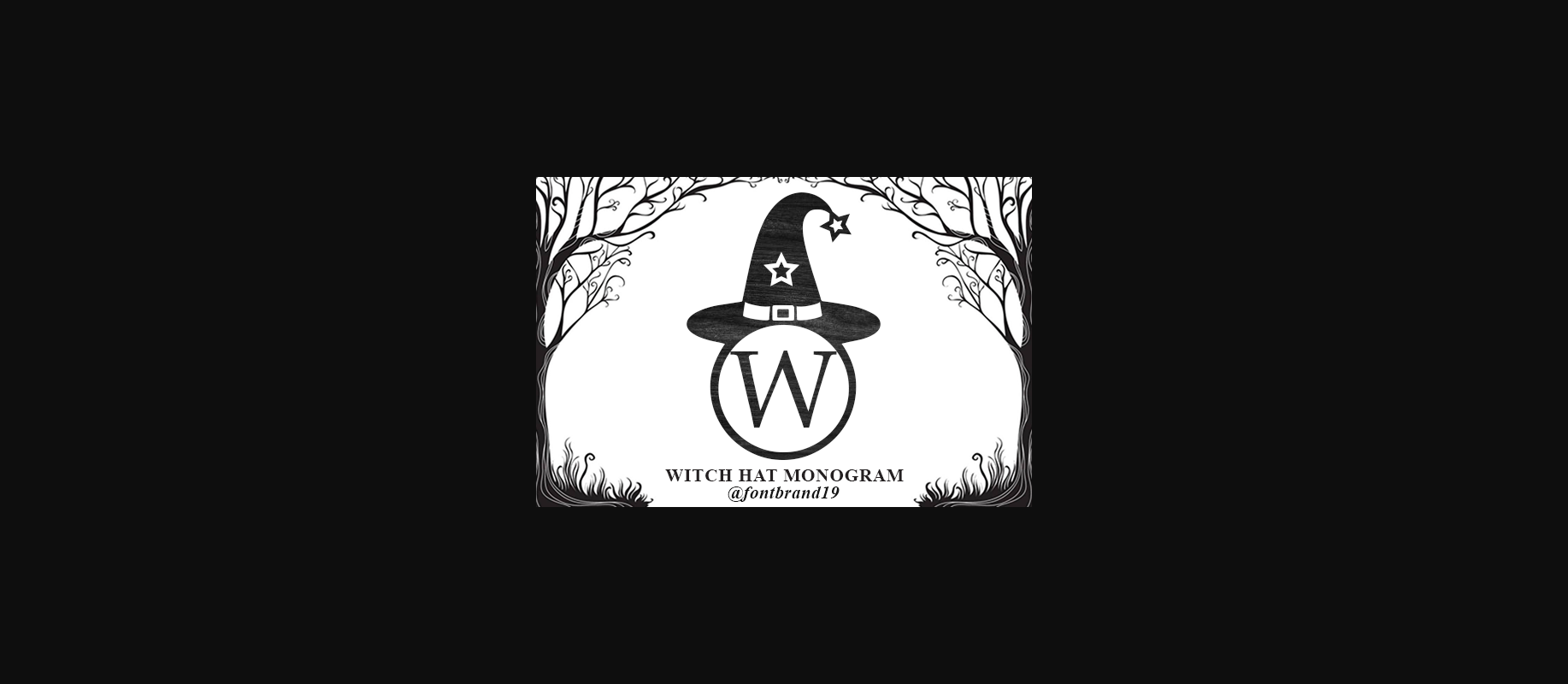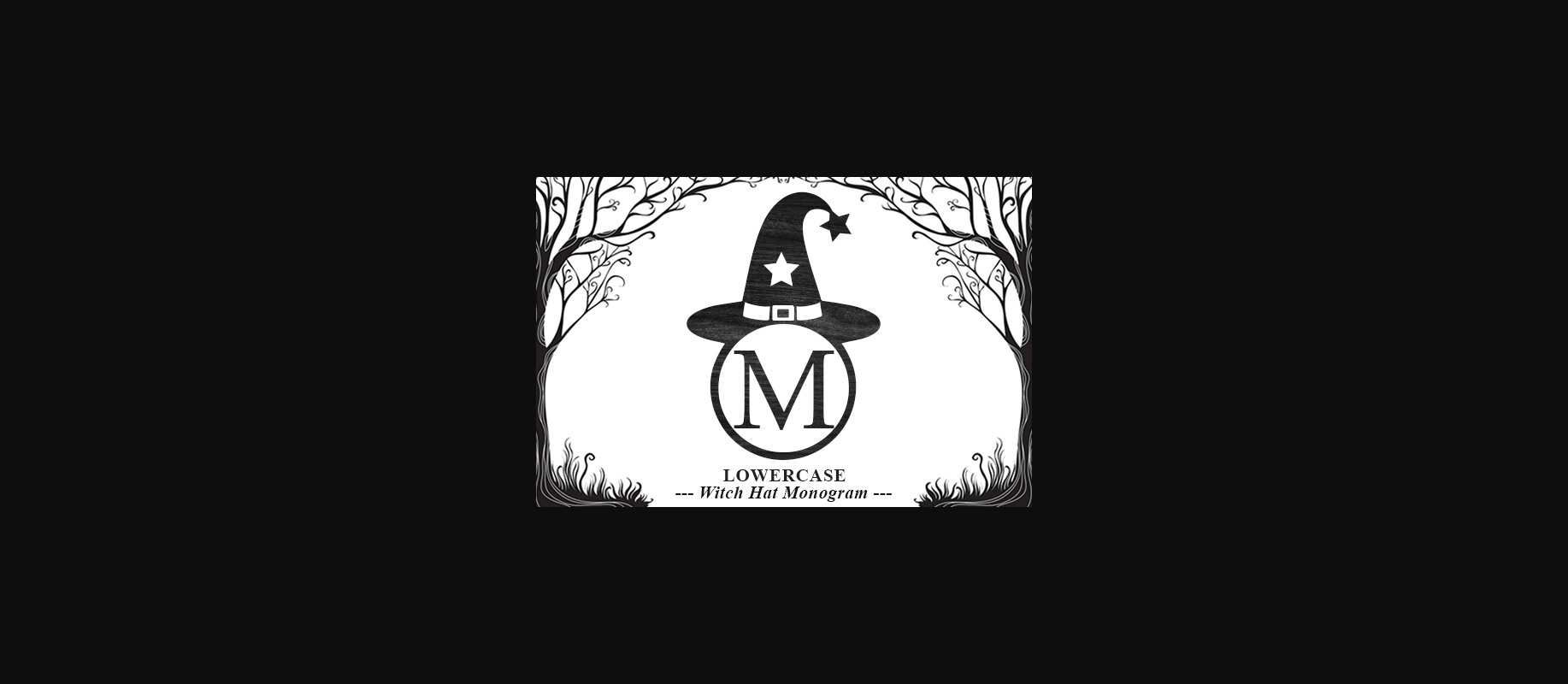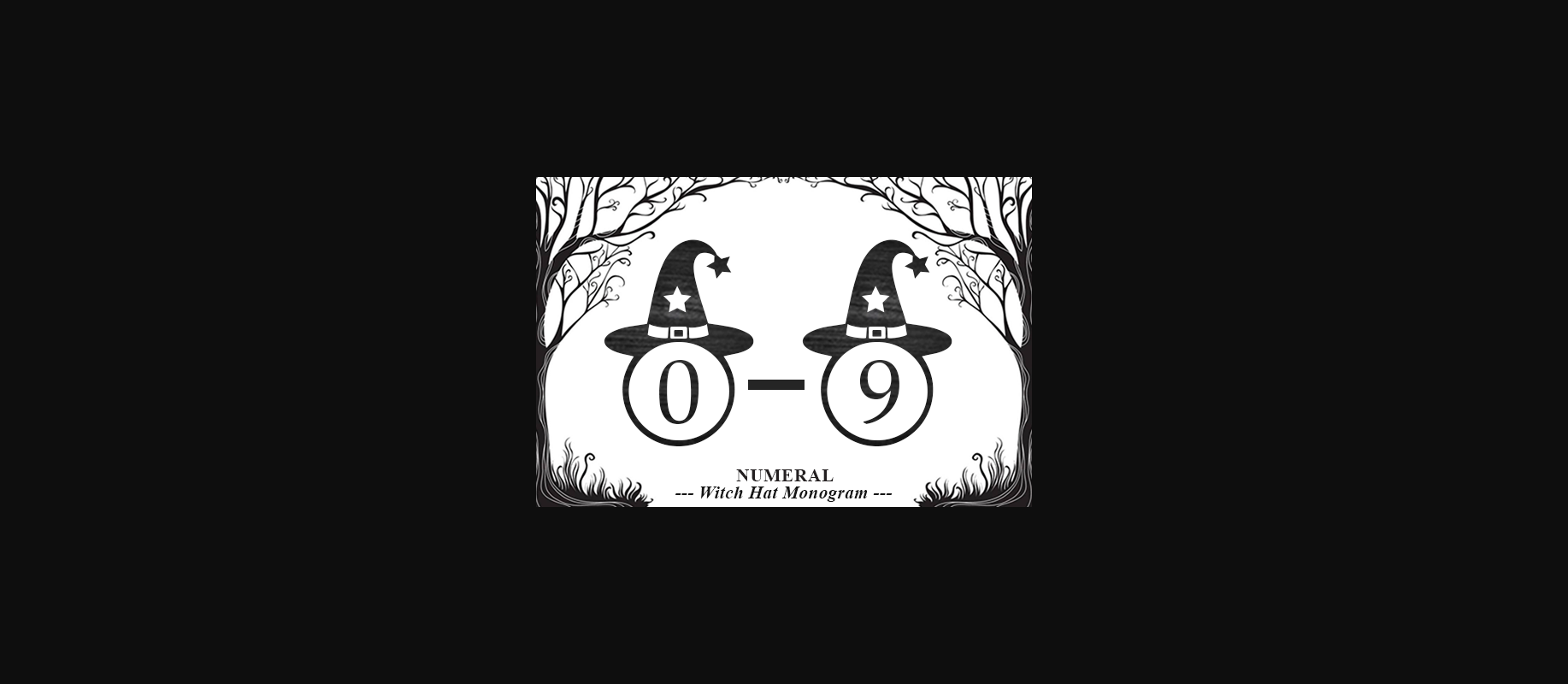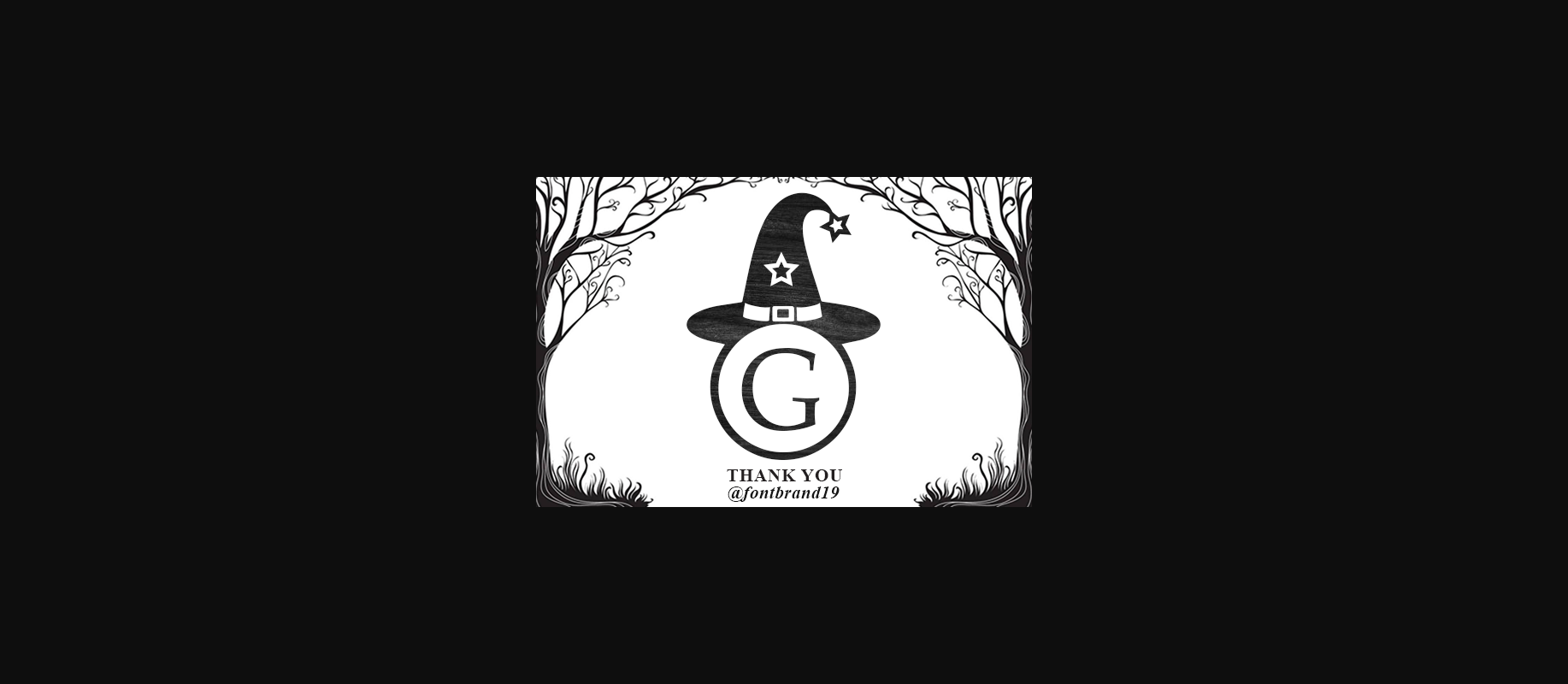
Witch Hat Monogram Font
About Witch Hat Monogram Font
Witch Hat Monogram is a highly detailed, spooky and interestingly designed decorative font. It is perfectly suitable for any Halloween-related project or crafty idea! The only limit is your imagination.